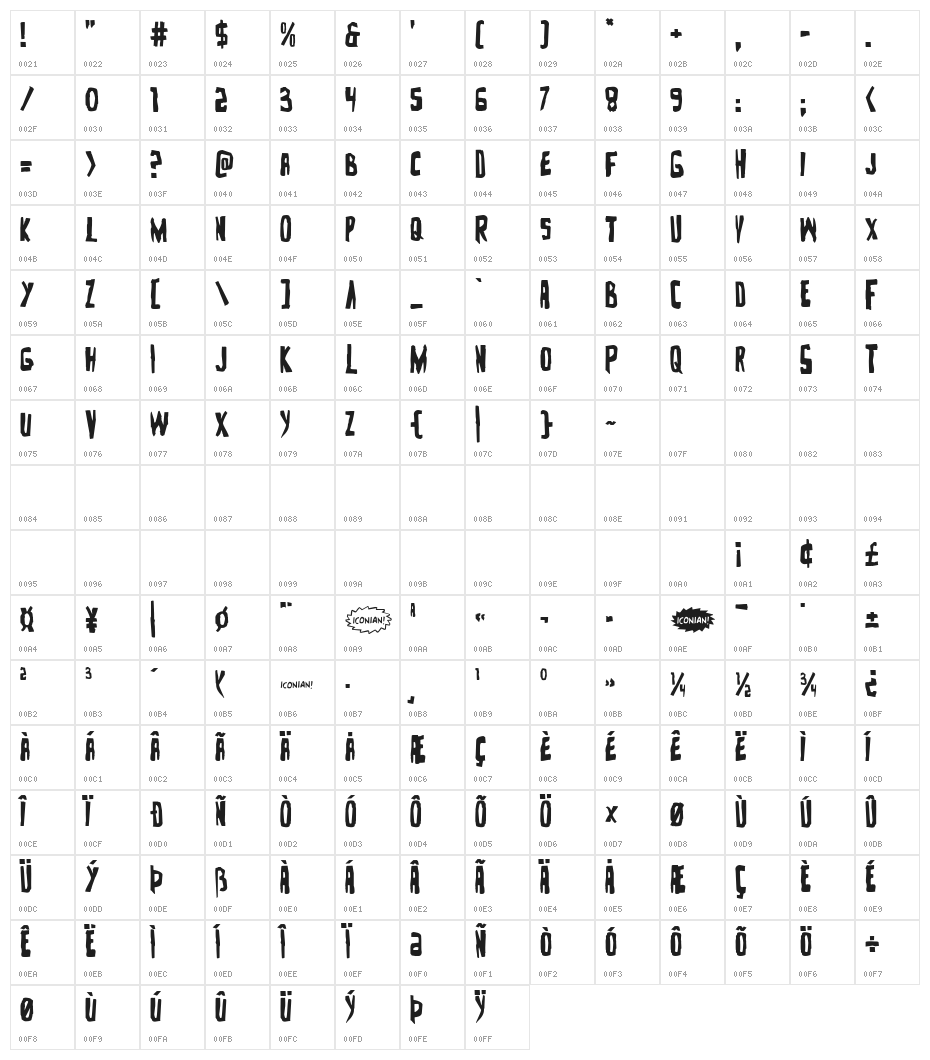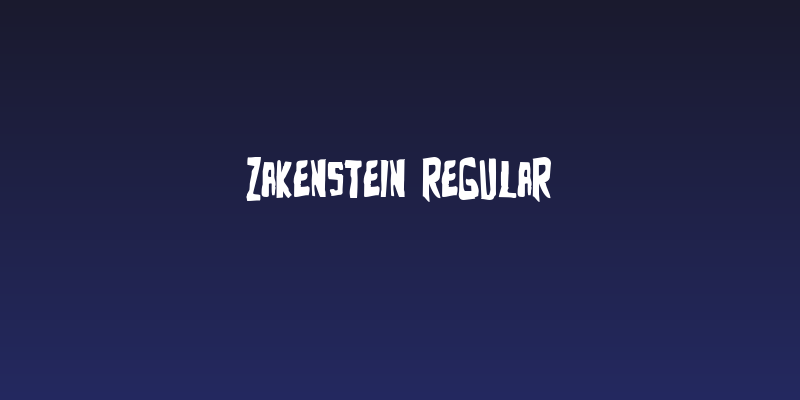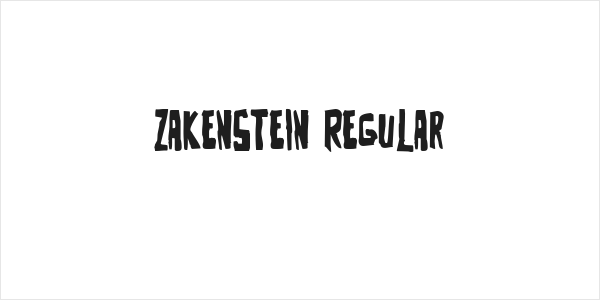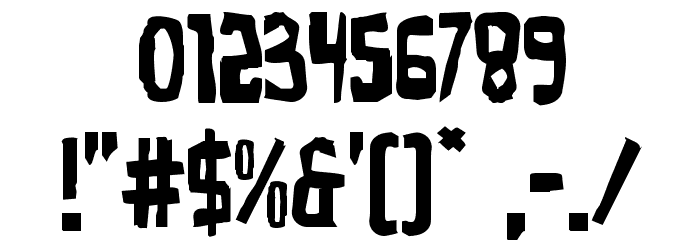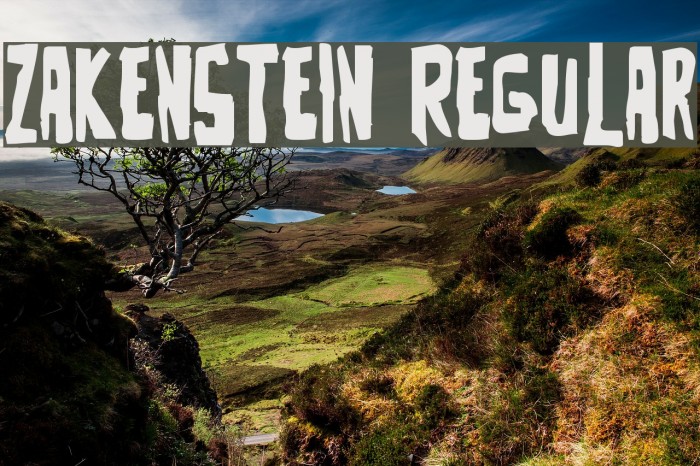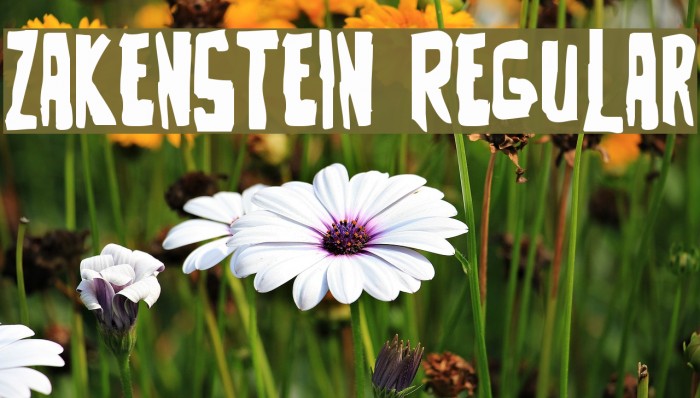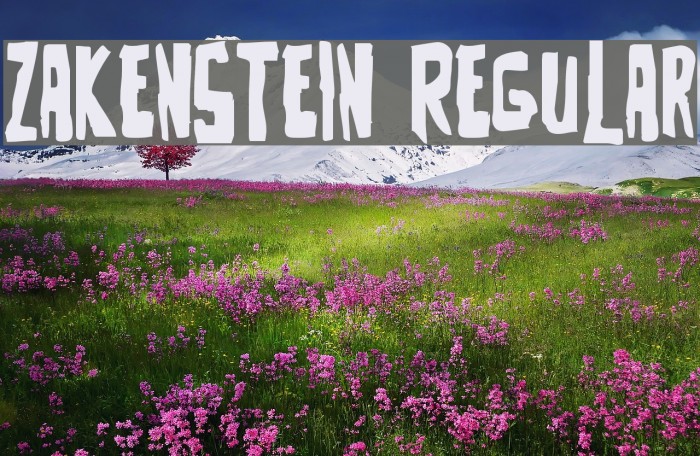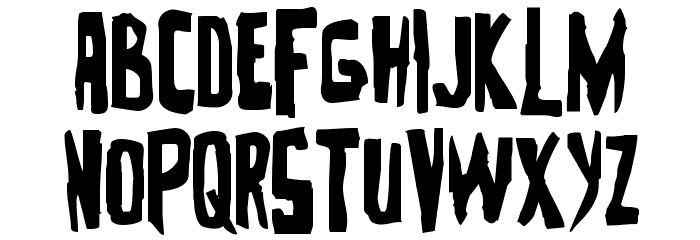
Zakenstein Regular Font
Zakenstein Regular Description
This font features a bold and rugged design with an irregular, hand-drawn appearance. The characters are tall and narrow, with uneven edges that give a sense of movement and energy. The uppercase and lowercase letters maintain a consistent style, with exaggerated serifs and varying stroke widths that add to its unique, handcrafted look. The numbers and special characters follow the same design principles, ensuring a cohesive appearance across all glyphs. This font's distinctive style makes it stand out, perfect for projects that require a bold and unconventional typeface.
ZAKENSTEIN-REGULAR UPPERCASE
ZAKENSTEIN-REGULAR LOWERCASE
ZAKENSTEIN-REGULAR OTHER CHARS